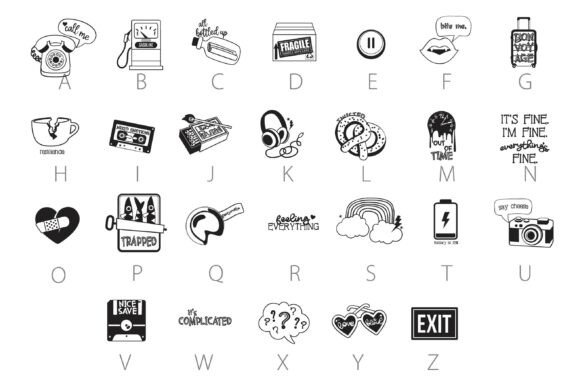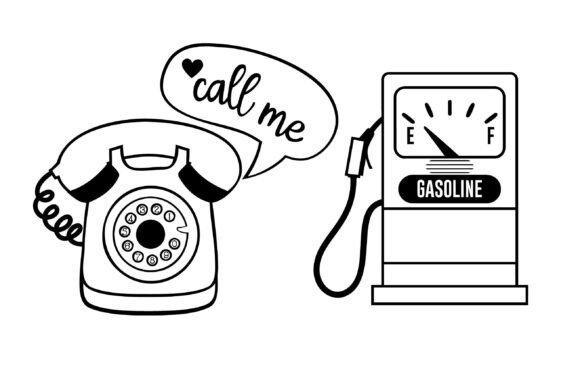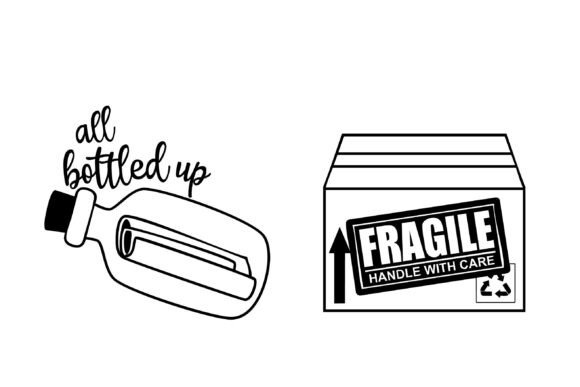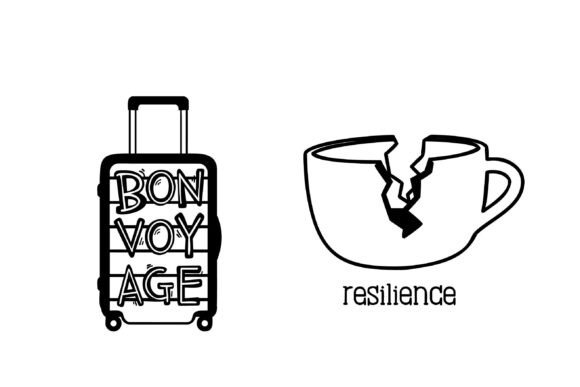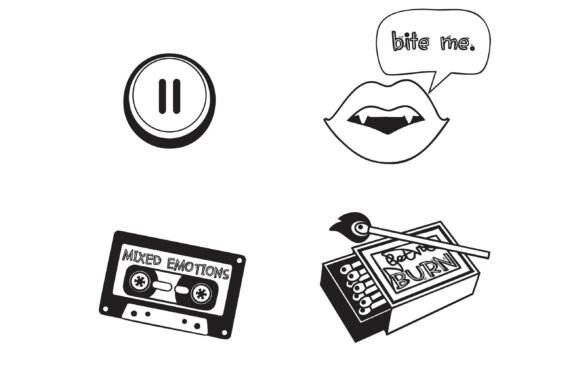
Introduction to Mixed Emotions Dingbats Font
Mixed Emotions | Symbolic Illustration Font Navigate the complexities of the human experience with Mixed Emotions, a thought-provoking dingbat typeface that captures a “sentimental-and-raw” soul.
This font features a diverse collection of symbolic icons—from vintage telephones and “bottled up” messages to melting clocks and bandaged hearts—all rendered with clean, rhythmic line art With its relatable graphic weight and expressive personality, Mixed Emotions is the premier choice for independent mental health awareness branding, personal journaling graphics, edgy streetwear designs, and high-impact “it’s-fine-everything’s-fine” social media headers.
Key Features of Mixed Emotions Dingbats Font
Why Choose Mixed Emotions Dingbats Font?
Mixed Emotions Dingbats Font offers exceptional quality and versatility, making it a valuable addition to your design toolkit. Whether you’re creating for personal projects or commercial use, Mixed Emotions Dingbats Font delivers professional results.